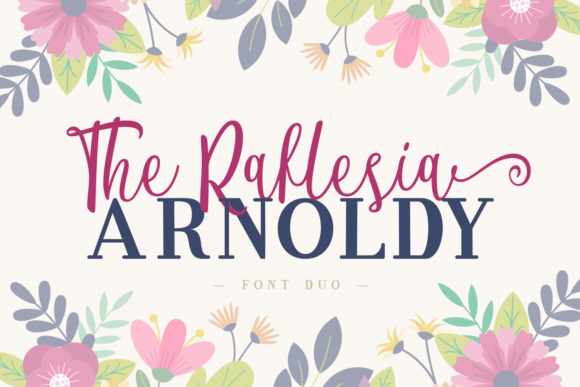
Venture into a world of elegance and refinement with The Raflesia Arnoldy Font, a captivating duo font that will transform your creative expressions into masterpieces. This exquisite font family, meticulously crafted by Dreamink (7ntypes), seamlessly blends the allure of a modern script with the timeless beauty of a serif font, creating a captivating harmony that will leave a lasting impression.
Unleash your creativity and let The Raflesia Arnoldy Font guide you on a journey of artistic exploration. Its graceful curves and delicate flourishes will add a touch of sophistication to your wedding invitations, making your special day even more memorable. With this font duo, your stationary art will blossom into a symphony of elegance, leaving a lasting impression on your loved ones.
Elevate your social media presence with The Raflesia Arnoldy Font, captivating your audience with visually stunning posts that exude charm and sophistication. Let your greeting cards bloom with warmth and personality, spreading joy and cheer to those who receive them.
Immerse yourself in the boundless possibilities that The Raflesia Arnoldy Font offers. Its versatility knows no bounds, adapting seamlessly to a myriad of design projects. From heartfelt wedding invitations to eye-catching posters, this font duo will add a dash of enchantment to all your creations.